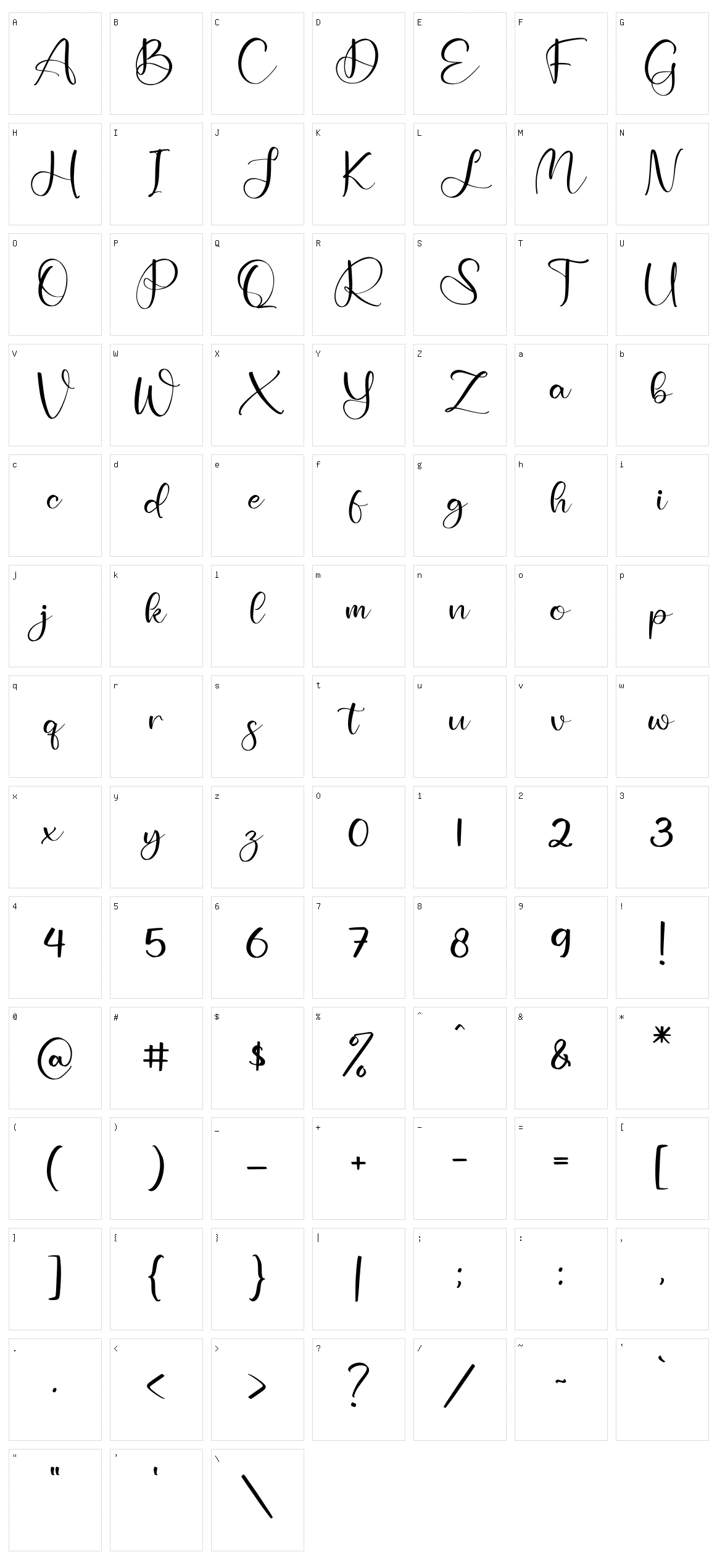
The free font Christian Sunday is carefully designed by Integritype Studio, showcasing a thoughtful balance of creativity and usability and falls under the Script font style. When you download the ZIP file, it contains only 57.33 KB of font files, making it lightweight and quick to download. Please review the license details below to understand permitted usage and distribution rights. If license information is not available, we recommend using this font for personal projects only or contacting the author directly for commercial usage permissions.